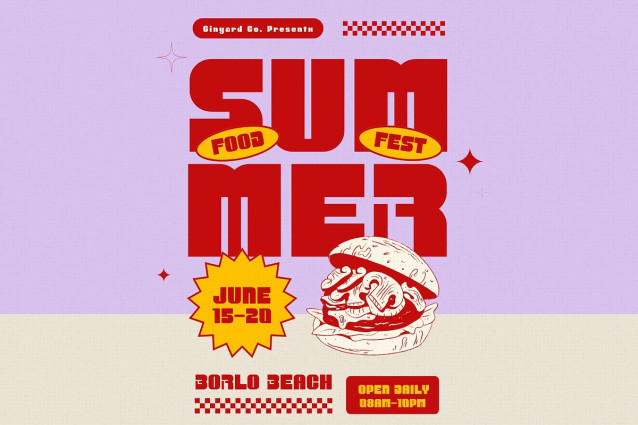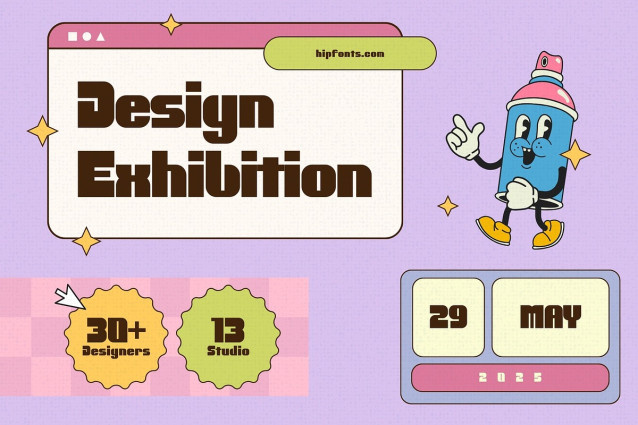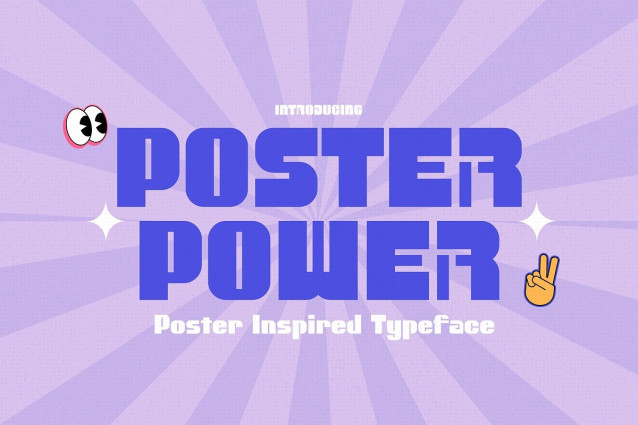
Toon Power Font
Poster Power Font, a striking sans-serif typeface designed to command attention and make a statement. Inspired by the bold aesthetics of vintage event posters, this font is perfect for headlines, eye-catching advertisements, and high-impact designs. With its strong presence and retro flair, Poster Power brings energy and style to any project.
Whether you’re designing concert posters, festival banners, or promotional materials, this typeface ensures your message is seen loud and clear. Its clean yet charismatic letterforms create a dynamic look that’s both modern and timeless. If you need a font that’s bold, beautiful, and built for attention, Poster Power is the perfect choice!